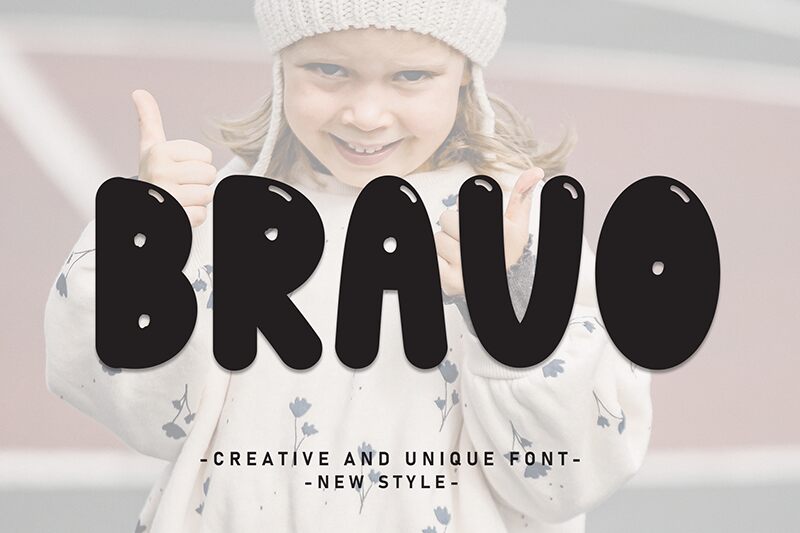
Bravo
Bravo font is a free display font designed by Andi Moz through which readers can visualize cartoonish characters whose bold intentions are the best kind. It features modern retro-inspired designs presented in condensed letters that demand attention, making it an eye-catching choice for the desired audience. Get ready for a playful atmosphere with this rounded bubbly, and friendly typeface.
Bold designs are needed to make advertisements memorable, so create fun posters and flyers for upcoming events, or get your favorite comic books rebranded! Use this fun font for cartoon branding designs including logos and packaging projects while adding it to social media posts with retro-inspired headlines or editing visual content added to apps and online platforms.